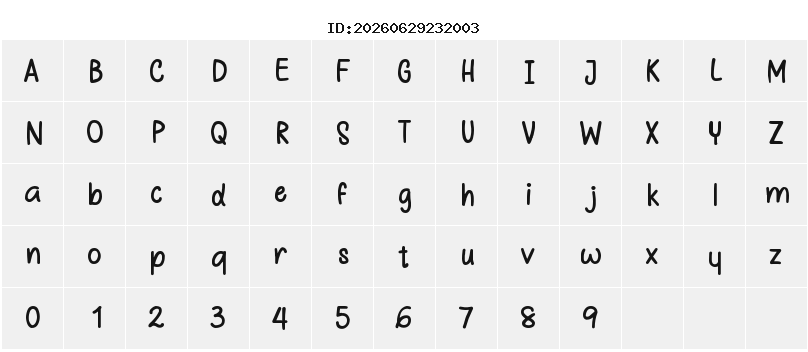
Aa一日不见我心悄悄 Preview
• Font Name: Aa一日不见我心悄悄
• Font Style: 常规
• Full Font Name: Aa一日不见我心悄悄
• Character Count: 22050
• Designer: Aa
• Manufacturer: 翰美互通(厦门)科技有限公司
• Description: AaYRBJWXQQ is a fantastic font with excellent features designed for user interfaces and electronic communications.
About Aa一日不见我心悄悄.ttf
Aa一日不见我心悄悄.ttf is a modern, elegant sans-serif font designed for ultimate readability and visual harmony. Perfect for branding, headlines, web design, and print materials.